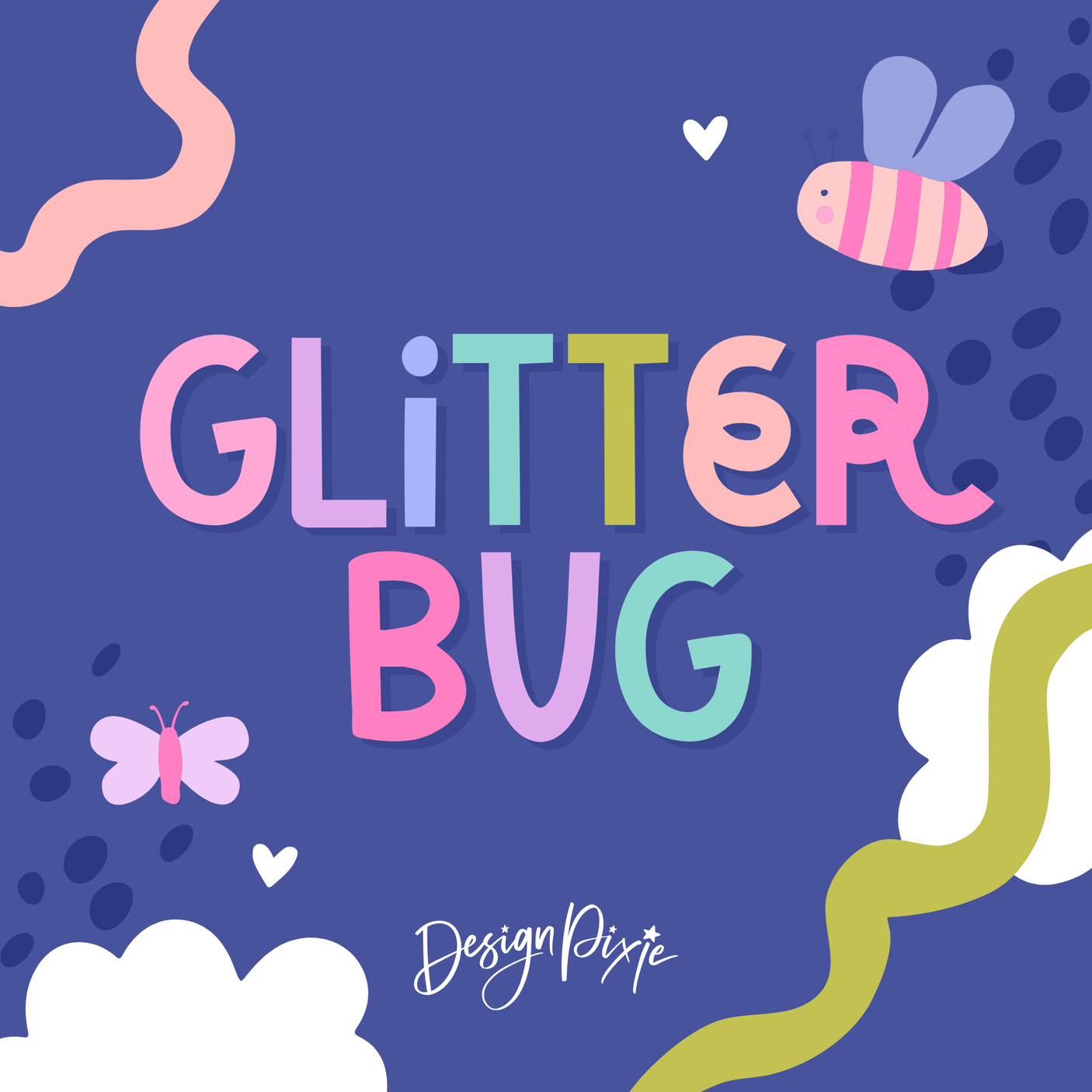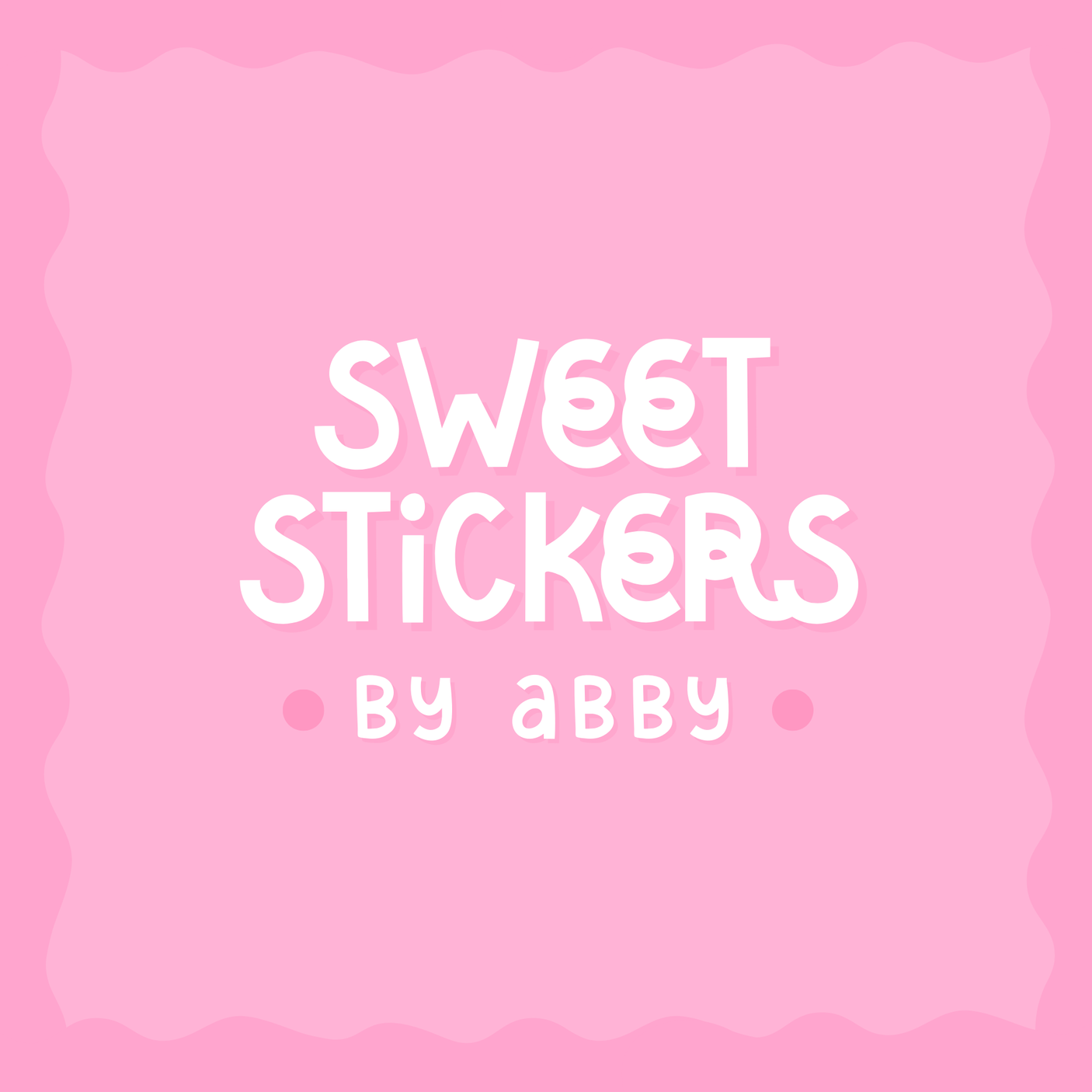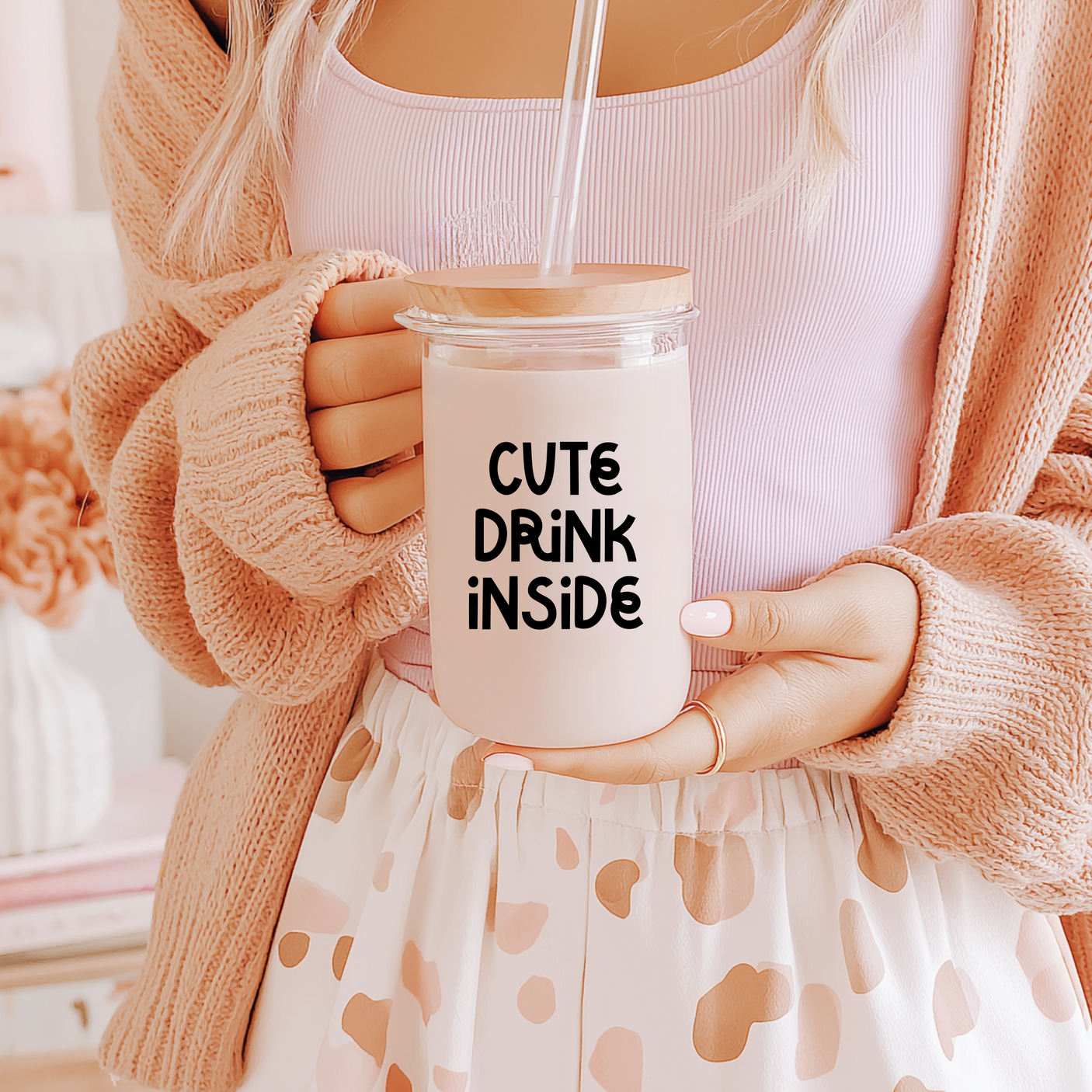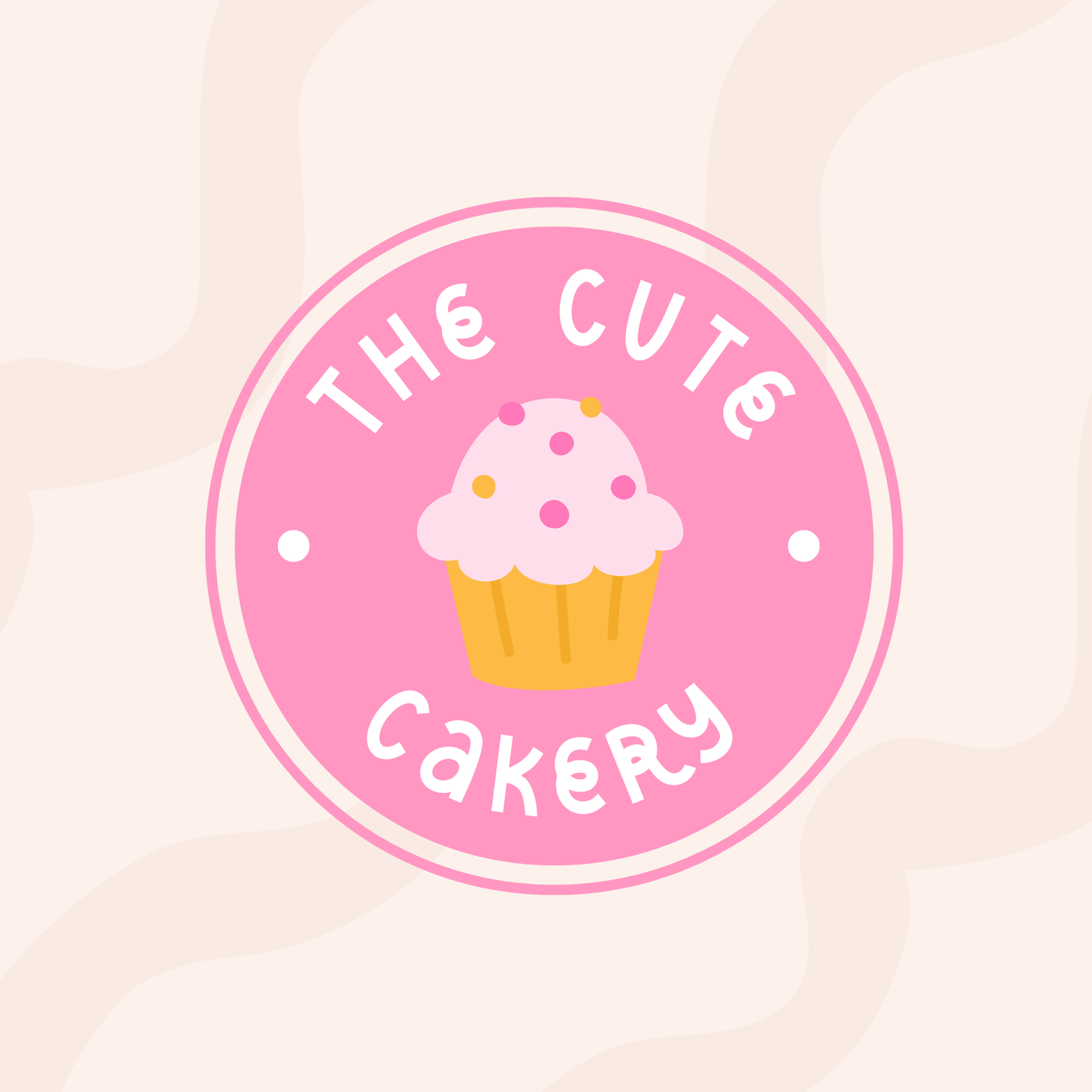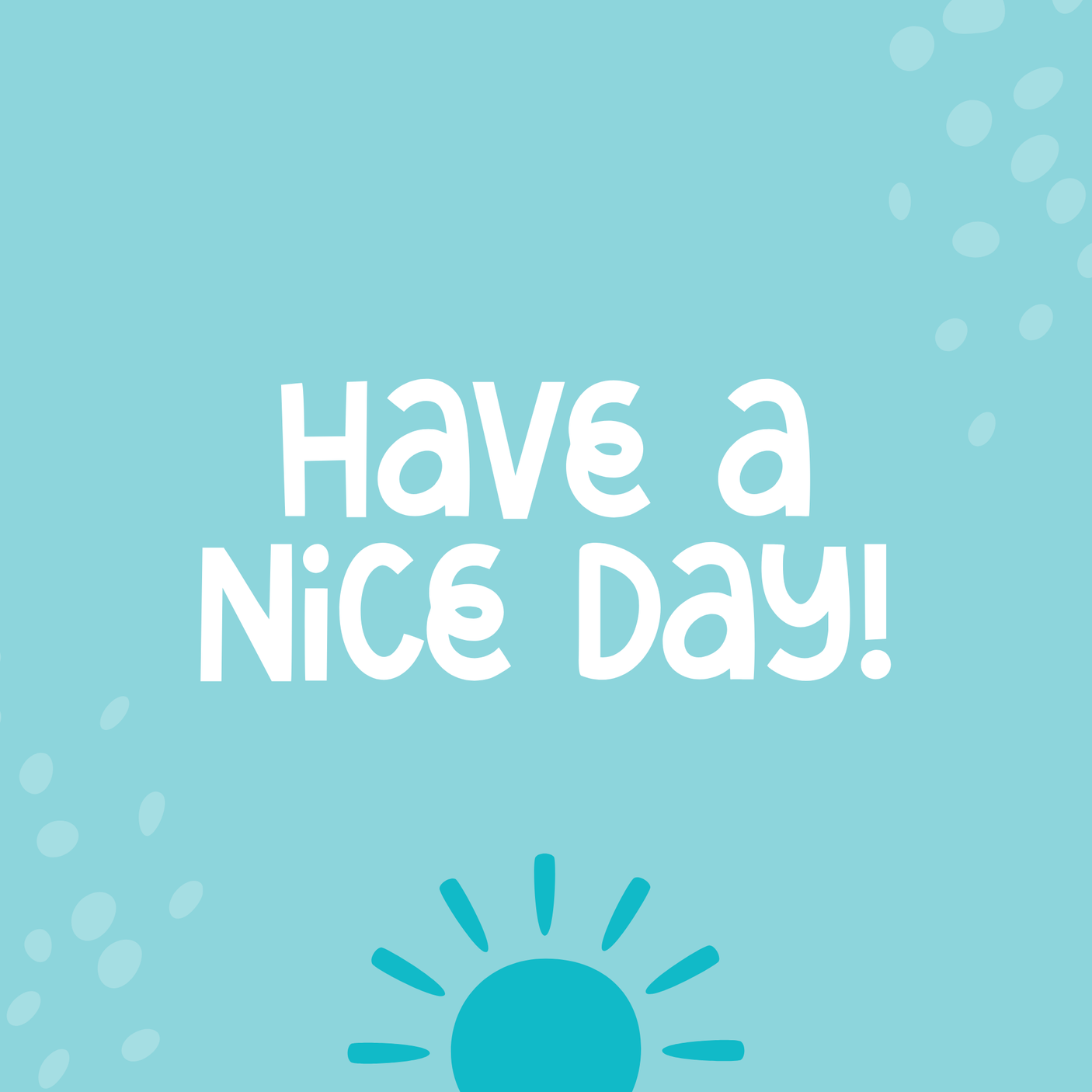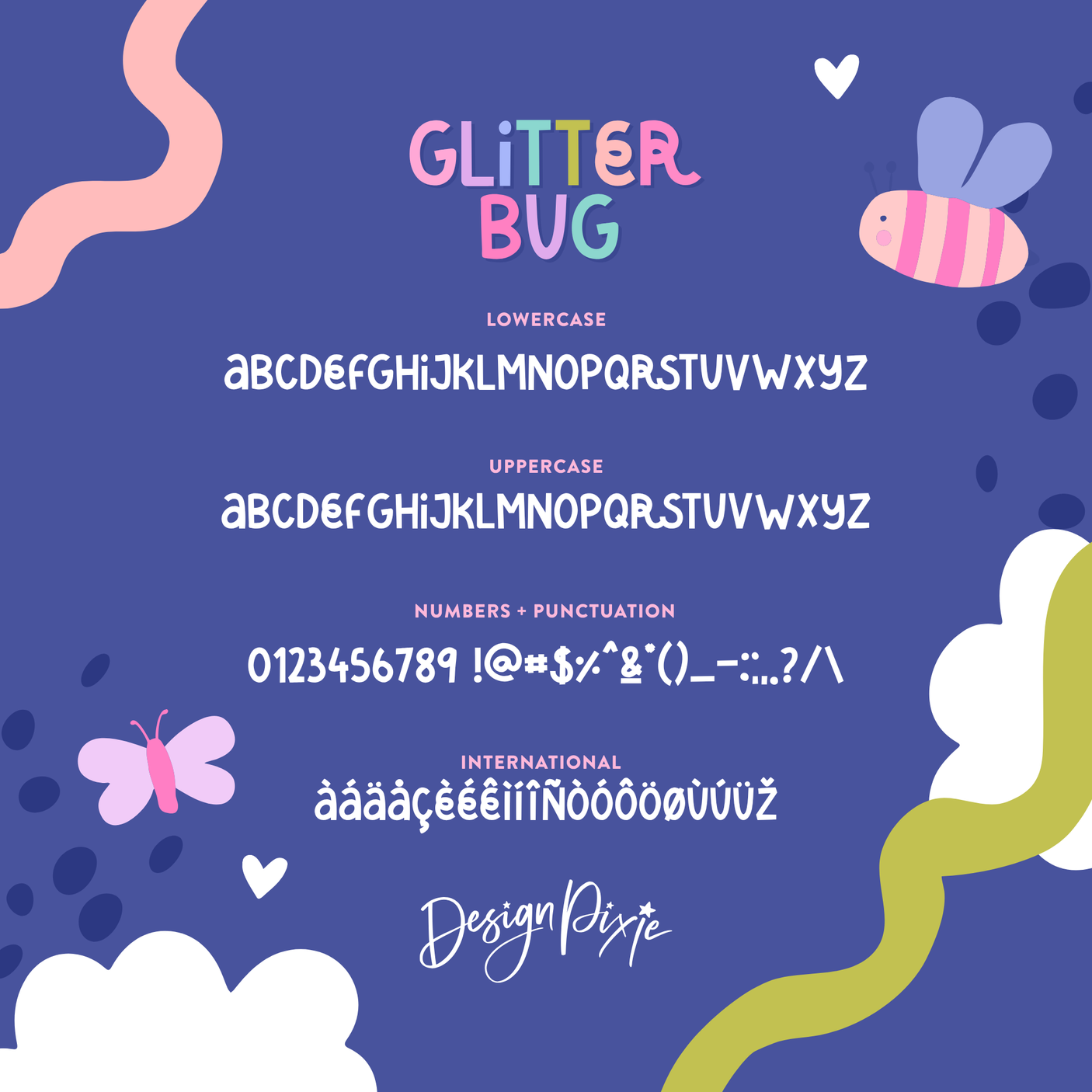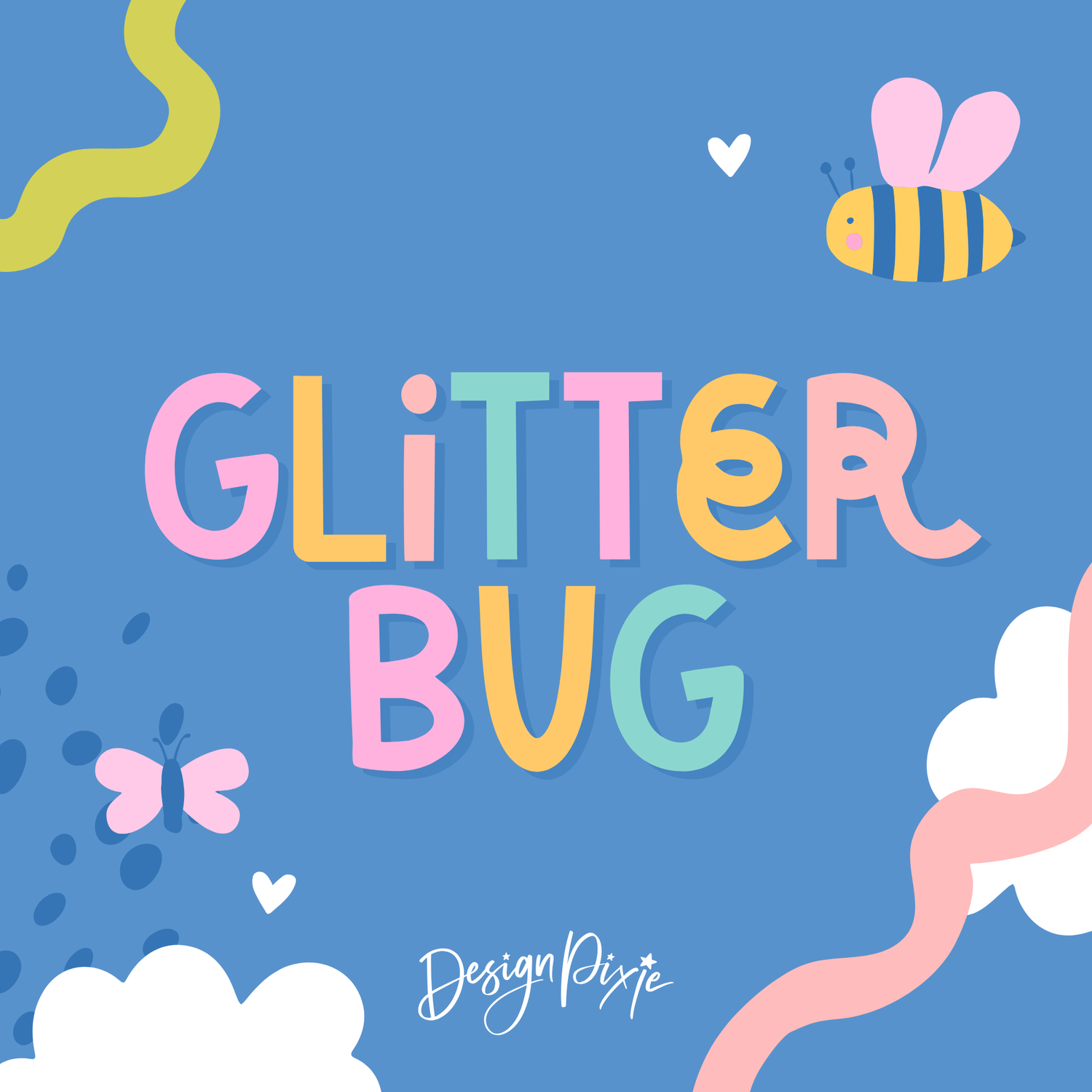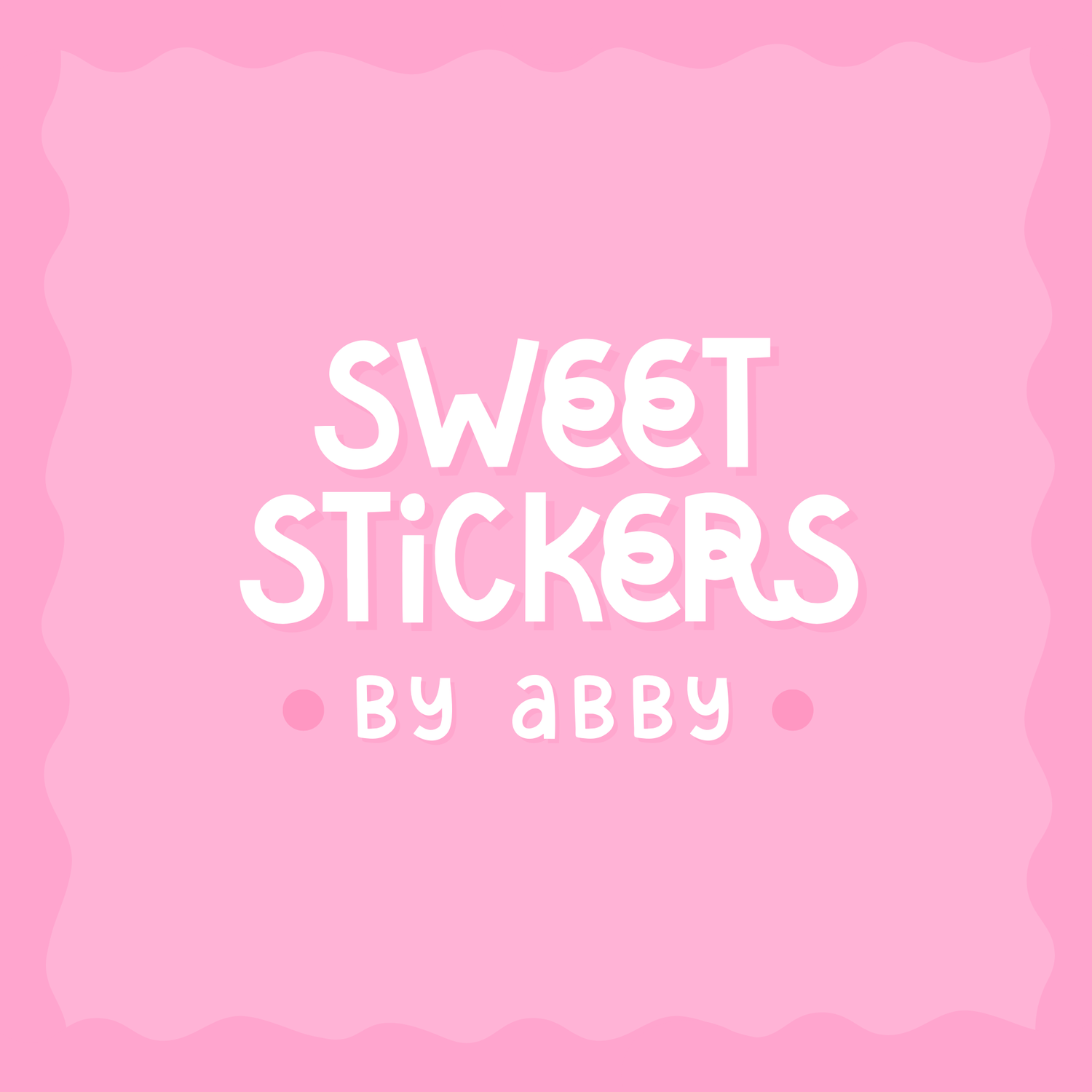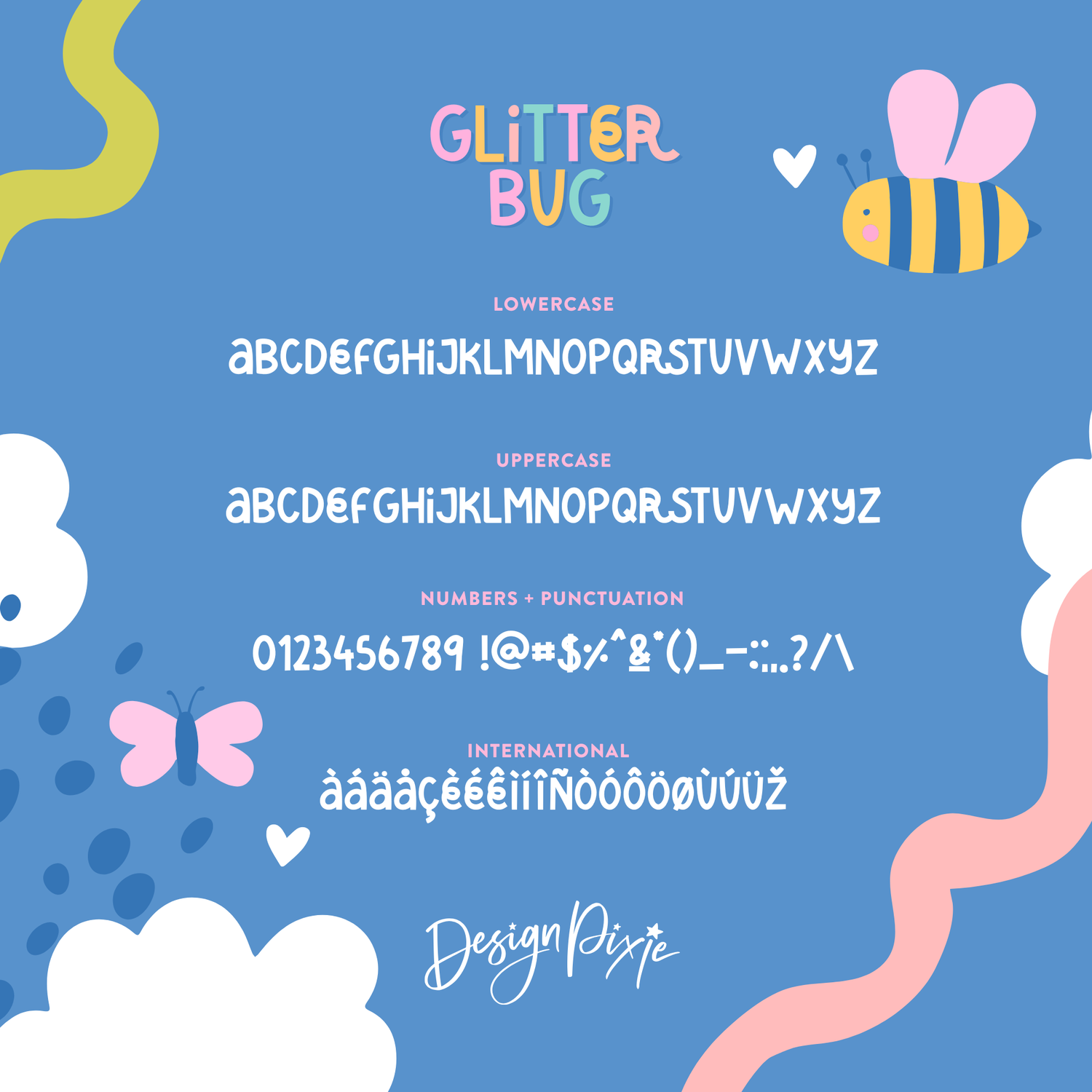
GlitterBug Font
Meet GlitterBug, the thick marker font with a quirky, playful vibe that makes your designs unforgettable. Its bold, chunky lines give a fun, handmade feel, perfect for logos, branding, product designs, stickers, packaging, shirts, and more.
GlitterBug stands out with personality and charm - ideal for creators who want a strong, eye-catching font that’s cute, quirky, and full of character. Make every word shine and grab attention instantly.